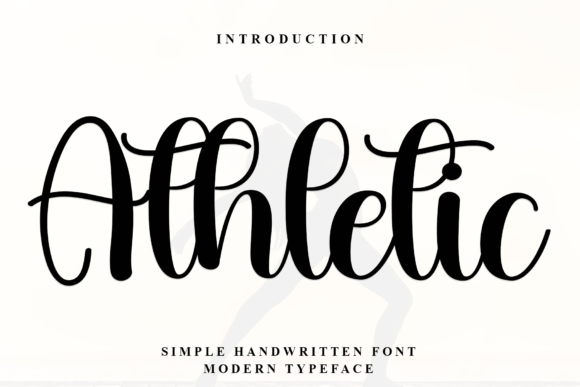
The Elegant Athletic Font: A Designer’s New Best Friend
I’ll never forget the time I was working on a wedding invitation project, and my client asked for a font that was “elegant, yet playful.” I scoured the internet, tried out dozens of fonts, but nothing seemed quite right. That was until I stumbled upon the Athletic font. Its fluid strokes and natural flow immediately captivated me, and I knew I had found the perfect fit. In this article, I’ll share my experience with the Athletic font, its features, and how to make the most of it in your designs.
• ✨ Elegant and sophisticated look that’s perfect for high-end designs
• ✅ Fluid strokes and natural flow that create a captivating visual effect
• 💫 Perfect for adding a personal touch to invitations, branding, or social media
• 🎨 Brings a sense of warmth and creativity to any design
While the Athletic font is a stunning addition to any design, there are a few things to keep in mind:
• 🤔 Some users may find the font a bit too delicate for certain design applications
• ⚠️ Limited availability of stylistic alternates, which may limit its versatility
The Story Behind Athletic Font
The Athletic font was designed by a team of typographers who wanted to create a font that embodied the spirit of athleticism and elegance. Inspired by the fluid movements of athletes, the font’s designers aimed to capture the dynamism and sophistication of the sports world. The result is a font that’s both stylish and versatile, perfect for a range of design applications.
Font Name Athletic Font
Author PiPi Creative
Q: What is the Athletic font best suited for?
A: The Athletic font is perfect for designs that require an elegant and sophisticated look, such as invitations, branding, and social media.
Q: Is the Athletic font available in different weights and styles?
A: The Athletic font is available in a range of weights and styles, making it versatile for different design applications.